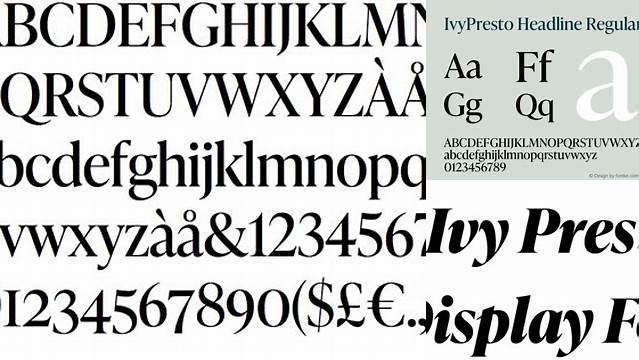
1. What is IvyPresto Regular Font?
Let’s start with the basics. IvyPresto Regular is more than just a font; it's a carefully crafted typeface designed to bring a touch of sophistication and clarity to any text. Created by a team of talented designers, it boasts clean lines and a balanced structure that makes it incredibly readable in various contexts. Whether you’re working on a sleek website design, a professional document, or eye-catching marketing materials, IvyPresto Regular can deliver that polished look you're aiming for. Its versatility is a major draw, making it suitable for both headlines and body text. The attention to detail in its design ensures that each character complements the others, creating a harmonious and visually pleasing reading experience. So, if you’re looking for a font that combines elegance with practicality, IvyPresto Regular is definitely worth considering.
2. Key Features of IvyPresto Regular
So, what makes IvyPresto Regular stand out from the crowd? Let’s break down some of its key features. First off, its readability is top-notch. The letterforms are designed with clarity in mind, making it easy on the eyes even in longer texts. This is crucial for projects where you want to keep your audience engaged without straining their vision. Secondly, IvyPresto Regular is incredibly versatile. It works beautifully in a variety of applications, from digital designs to print materials. Think websites, brochures, presentations, and more. Its clean and modern aesthetic ensures it won't look out of place, no matter the context. Another notable feature is its balanced design. The spacing and proportions of each character have been meticulously crafted to create a harmonious and visually appealing typeface. This balance contributes to its professional and polished appearance. In short, IvyPresto Regular’s key features make it a go-to choice for designers looking for a reliable and stylish font.
3. Why Choose IvyPresto Regular for Your Projects?
Why should you pick IvyPresto Regular over the countless other fonts out there? Well, there are several compelling reasons. For starters, its professional appearance can instantly elevate the look and feel of your projects. Whether you're designing a business card, a website, or a report, IvyPresto Regular adds a touch of class and sophistication. Its readability makes it a fantastic choice for body text, ensuring your audience can easily digest your content. Plus, its versatility means you can use it across a wide range of projects without worrying about it looking out of place. Another big advantage is its modern aesthetic. IvyPresto Regular has a contemporary feel that aligns well with current design trends, helping your work stay fresh and relevant. Finally, it’s a font that strikes a great balance between being unique and universally appealing, making it a safe bet for diverse audiences. So, if you're looking for a font that’s both stylish and practical, IvyPresto Regular is a solid choice.